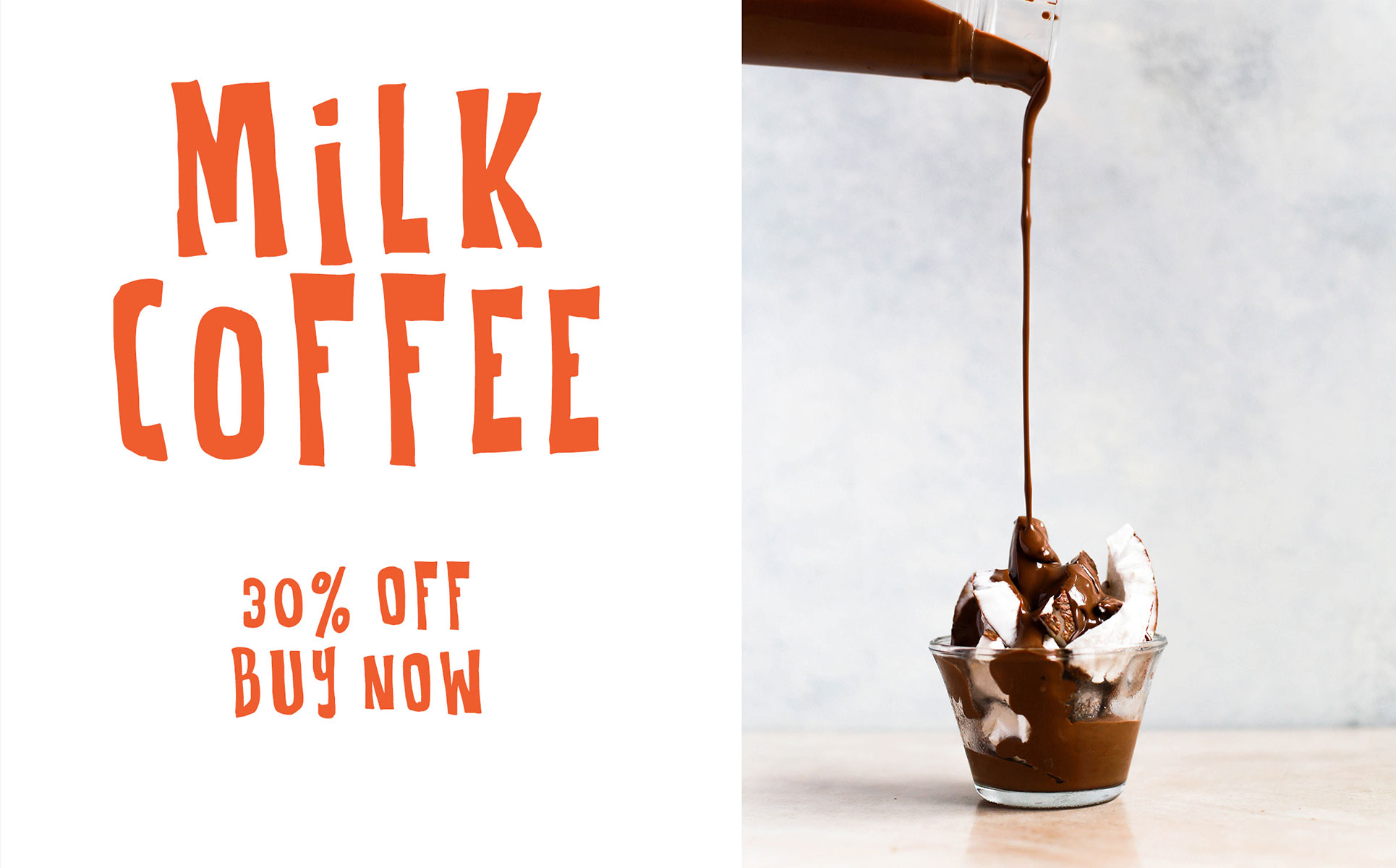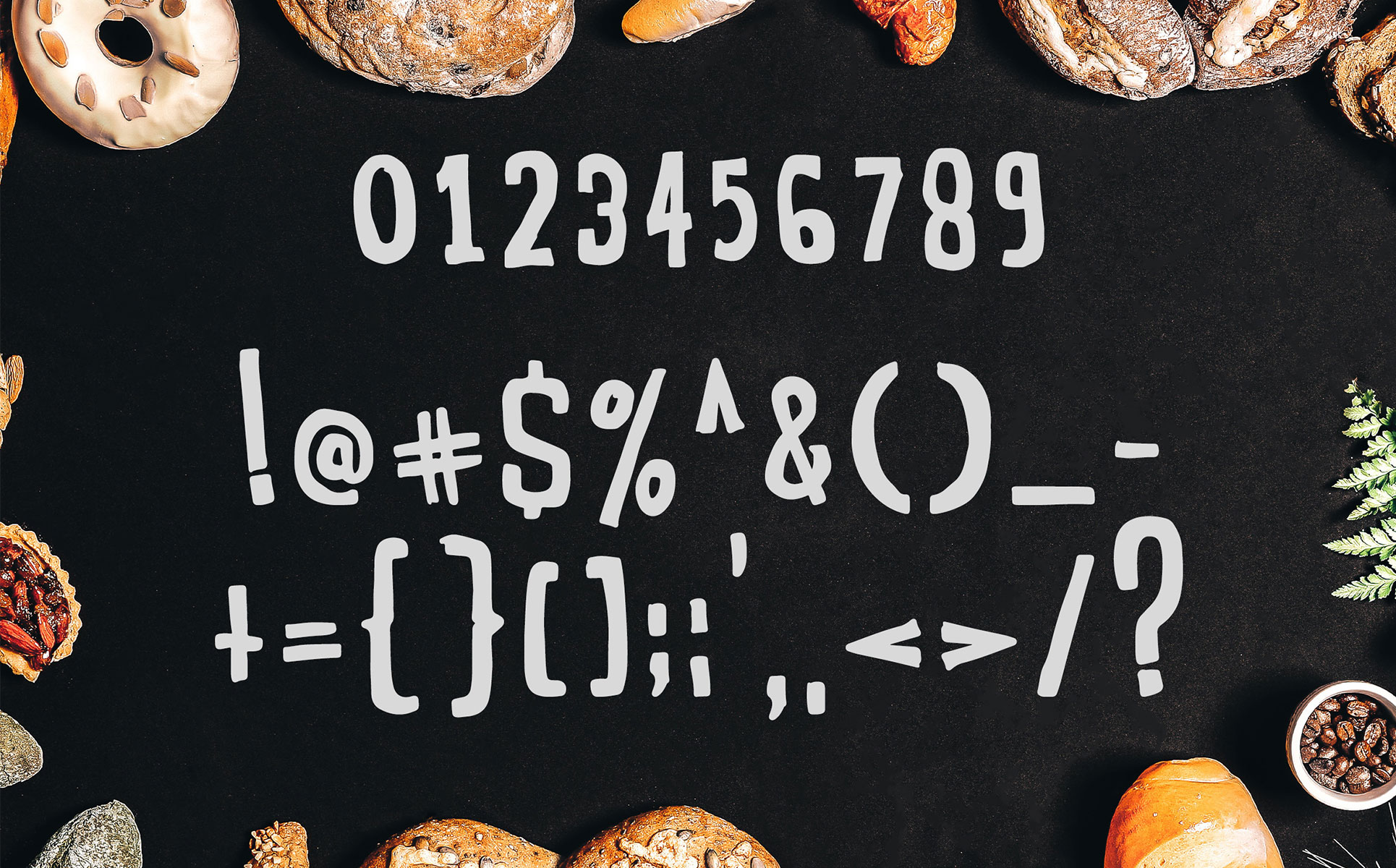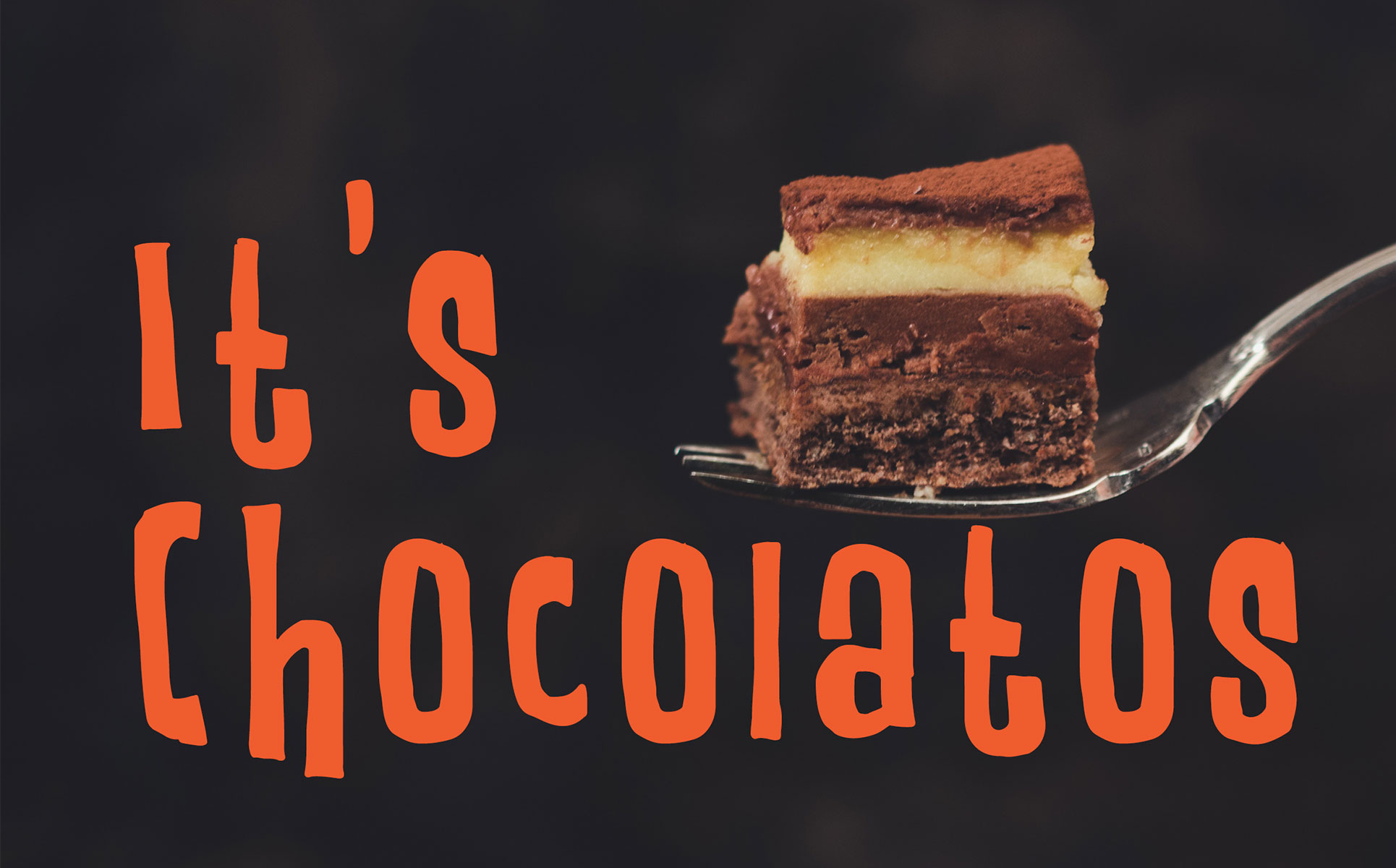
Robeck - Handwritten Font Font
We are happy to introduce our new font "RoBeck". RoBeck is a bold display font, this font looks funny, cute, kids, cartoon,
playful, catchy and easy to use.